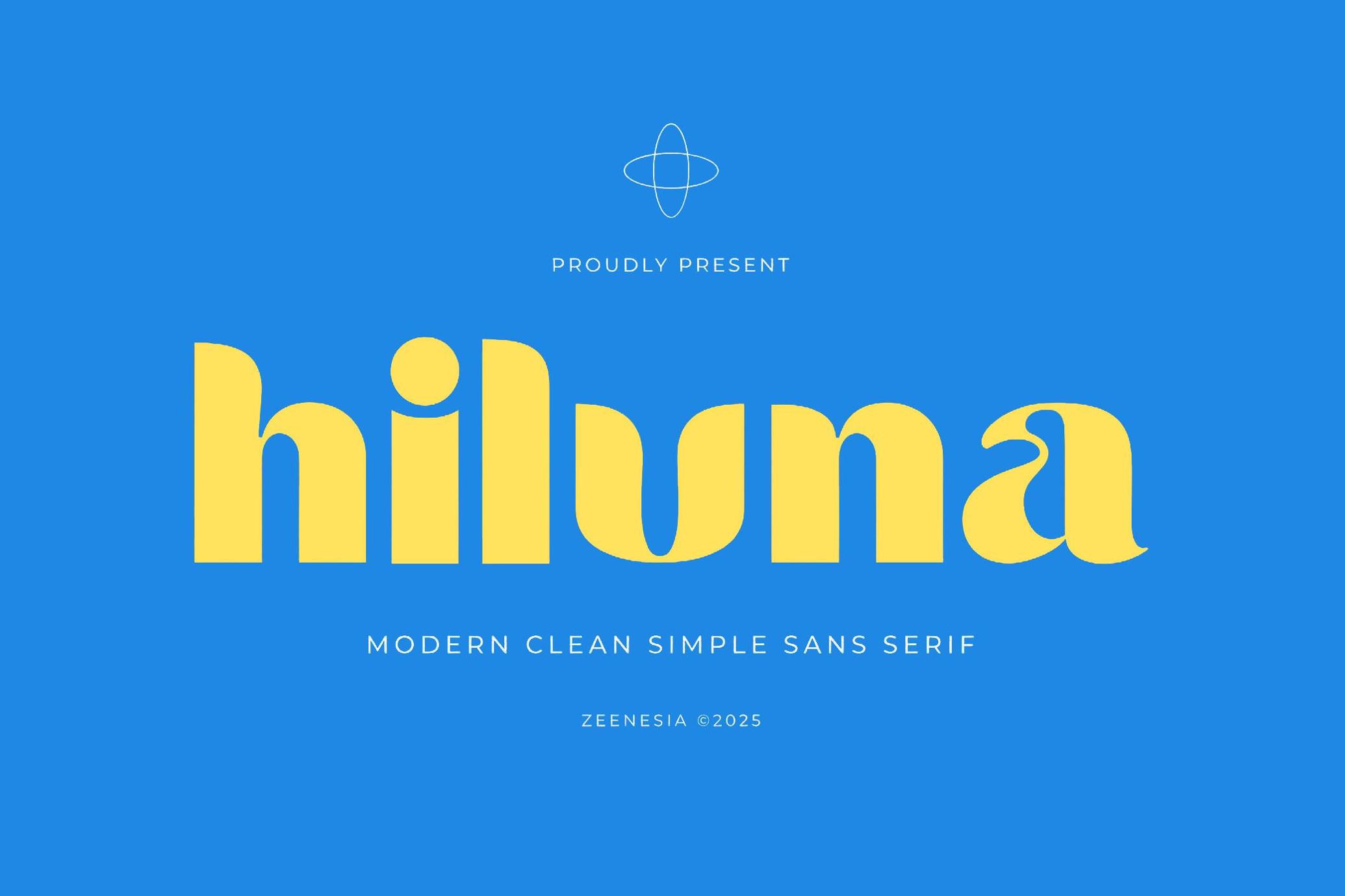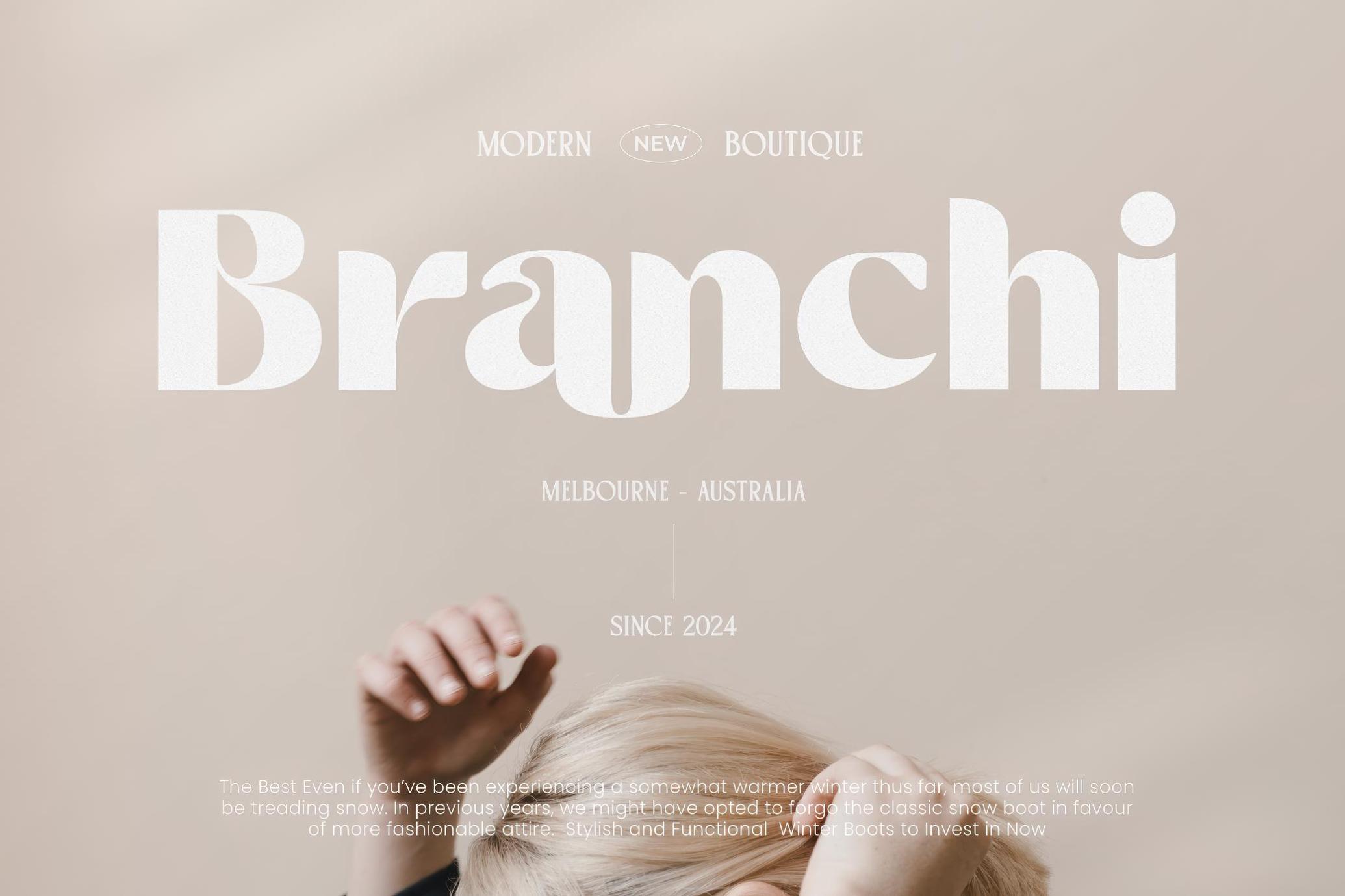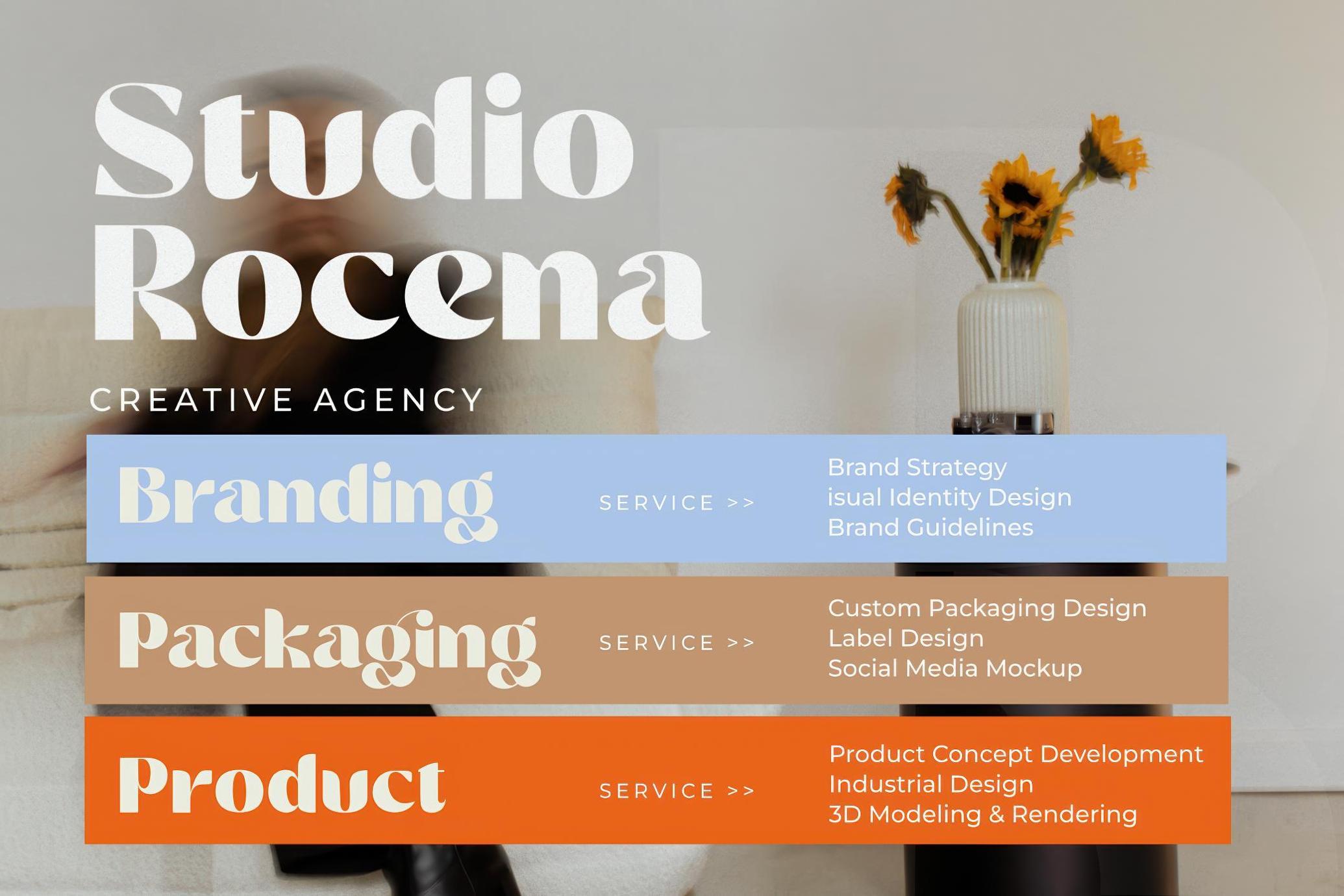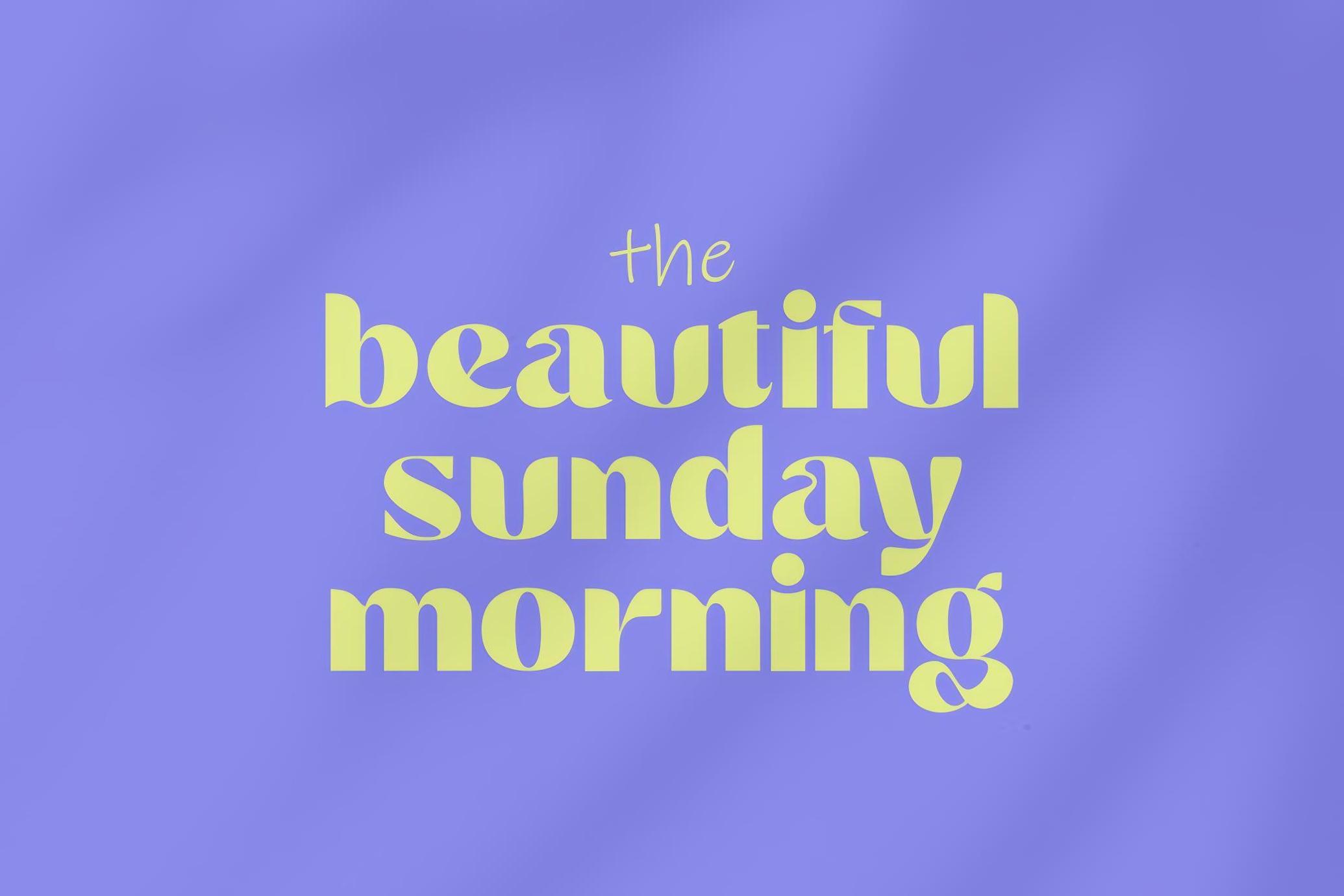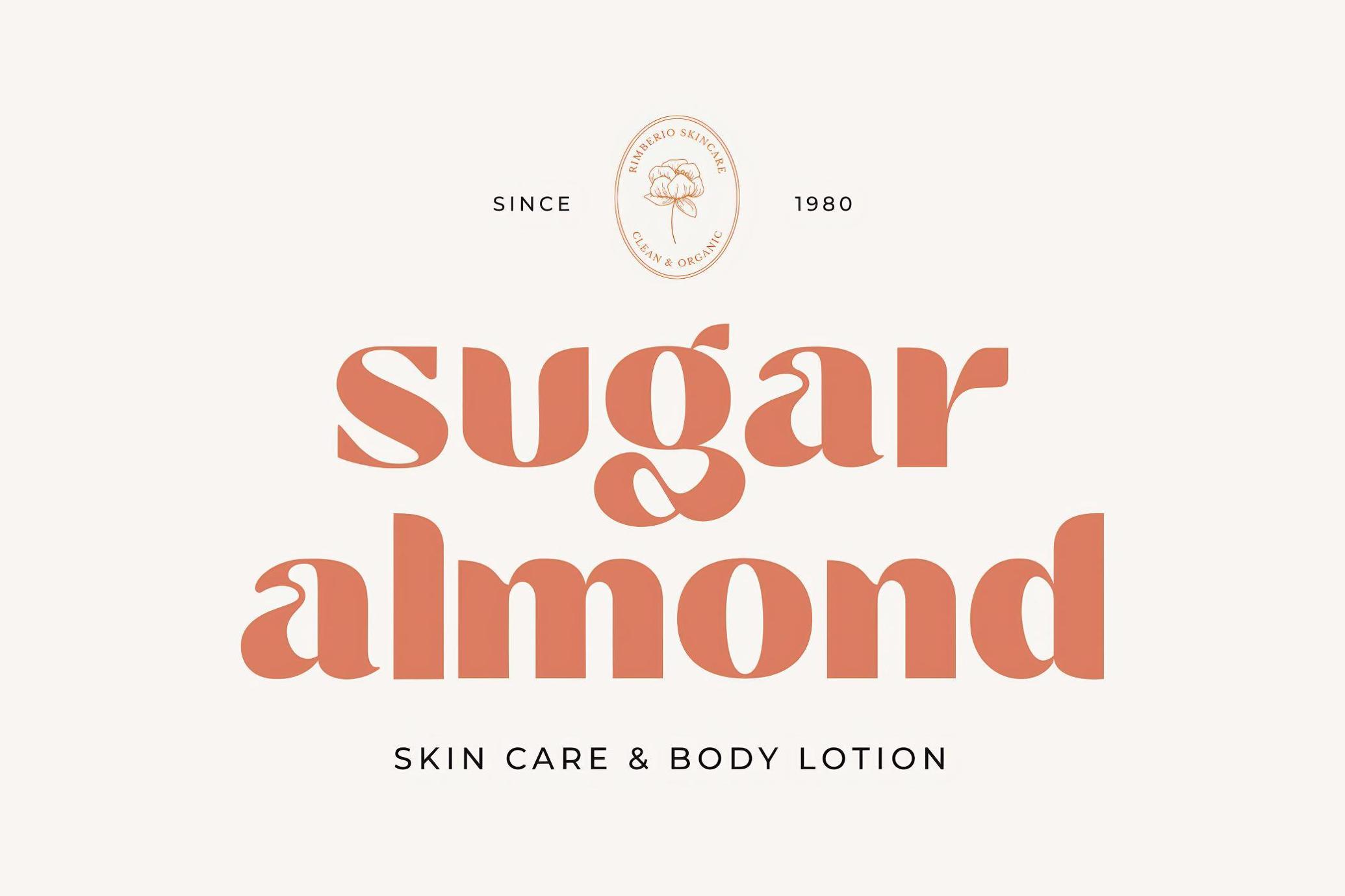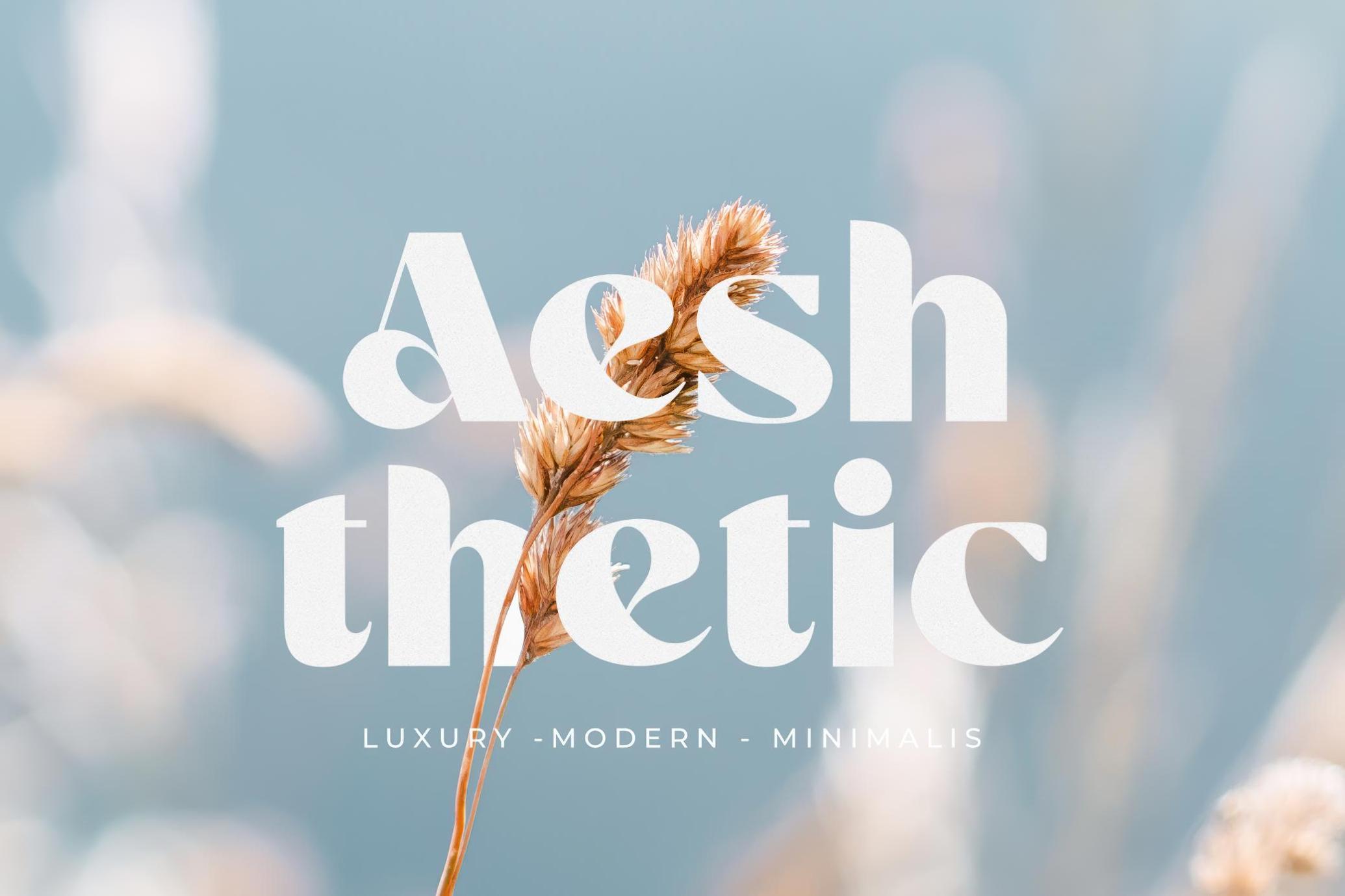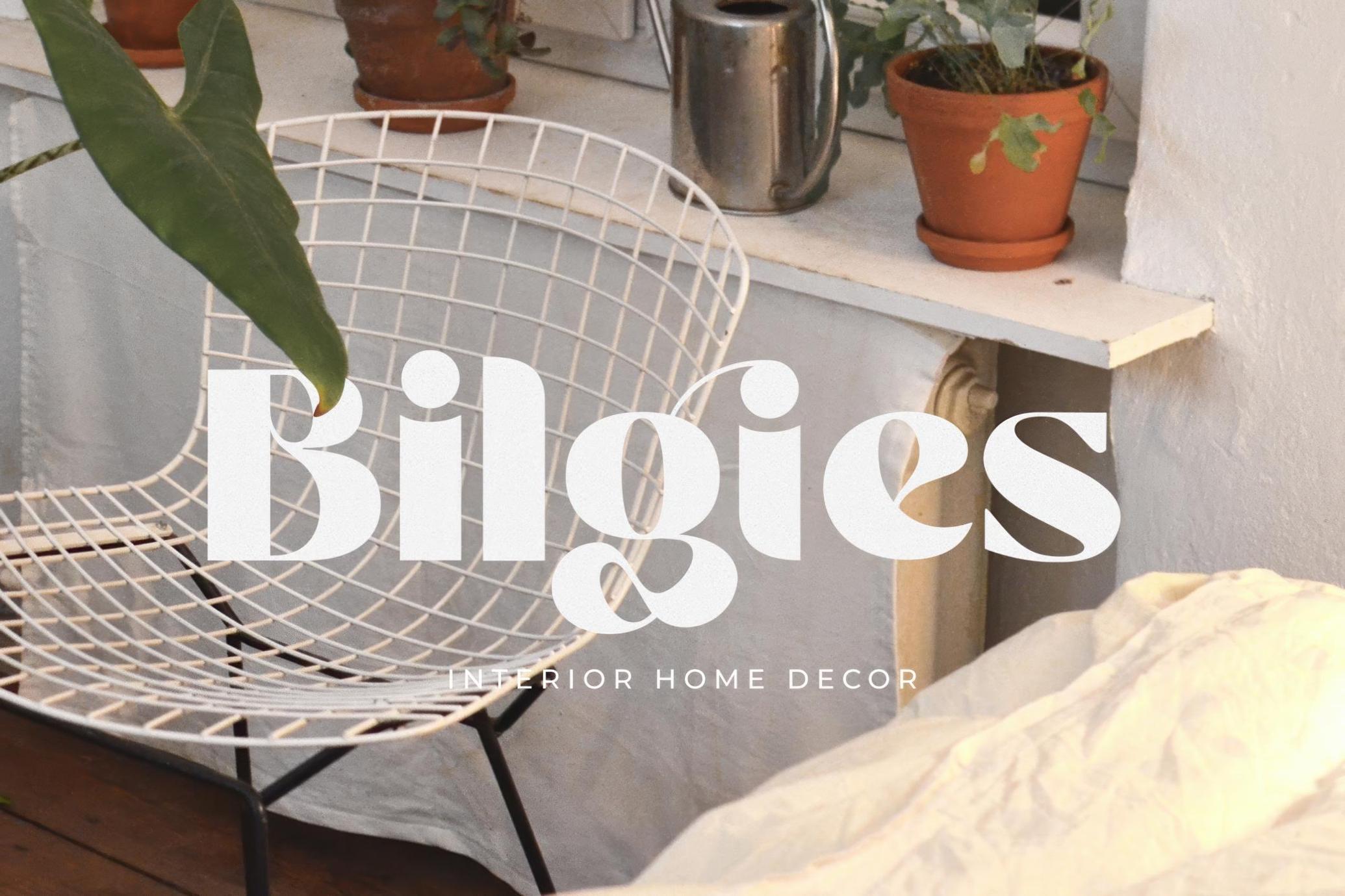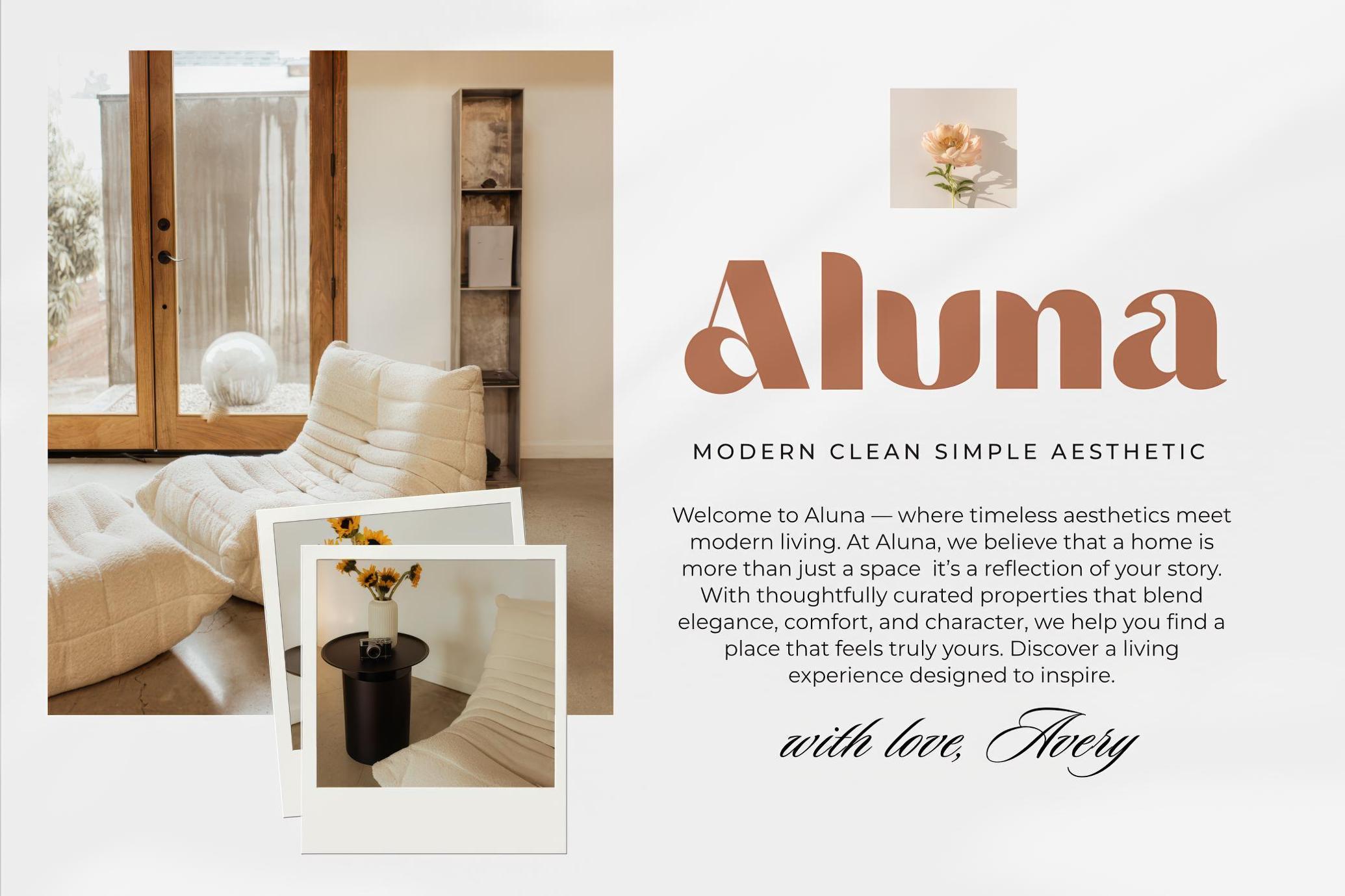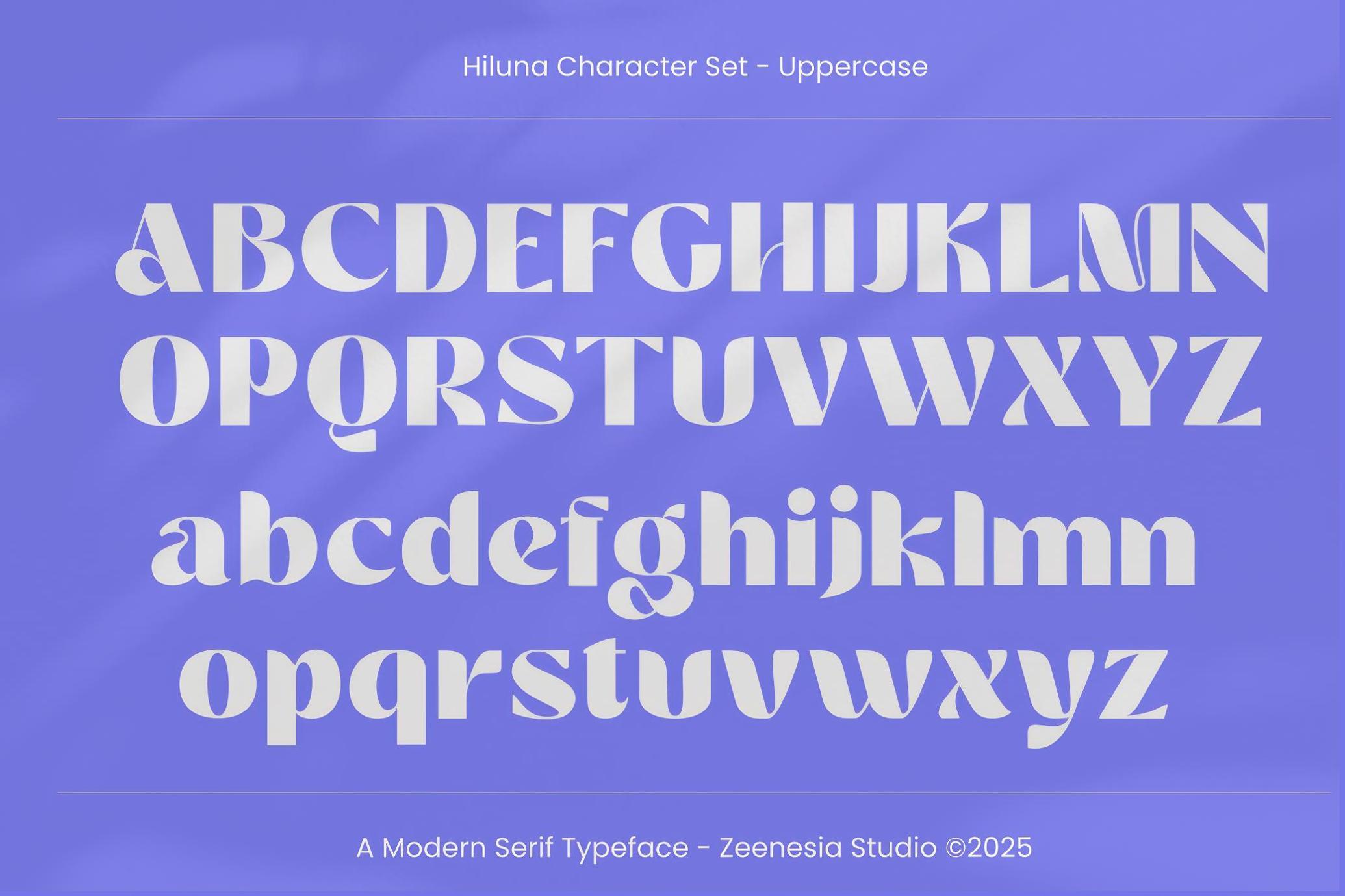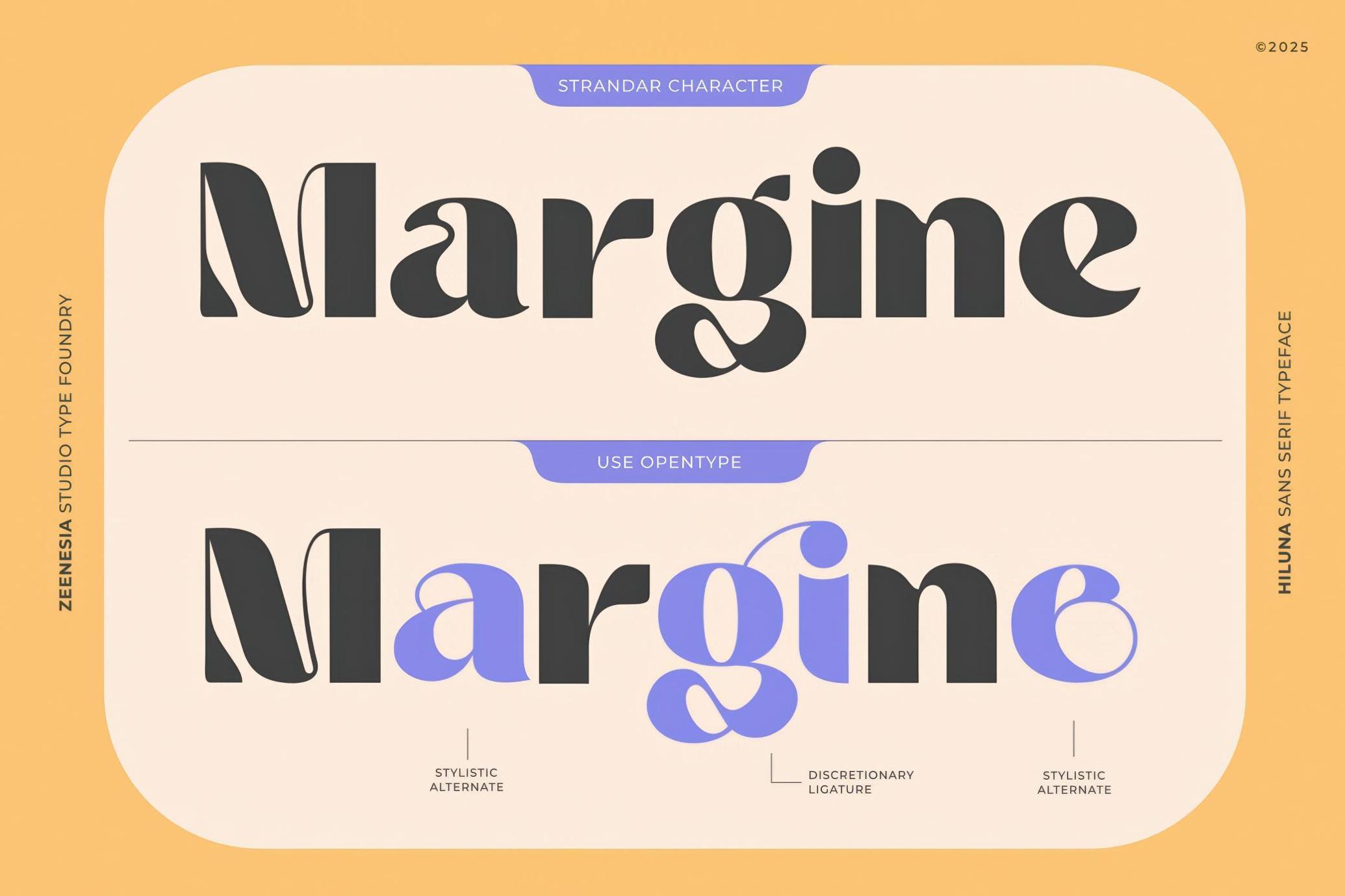
Hiluna — Clean Sans Serif
Hiluna is a serif typeface with serious flair. Its chunky curves and sharp tapering strokes play off each other in unexpected ways — something like vintage editorial design or a futuristic logotype. There’s a distinct mid-century flavor at work, but the letterforms still feel fresh, almost animated in motion.